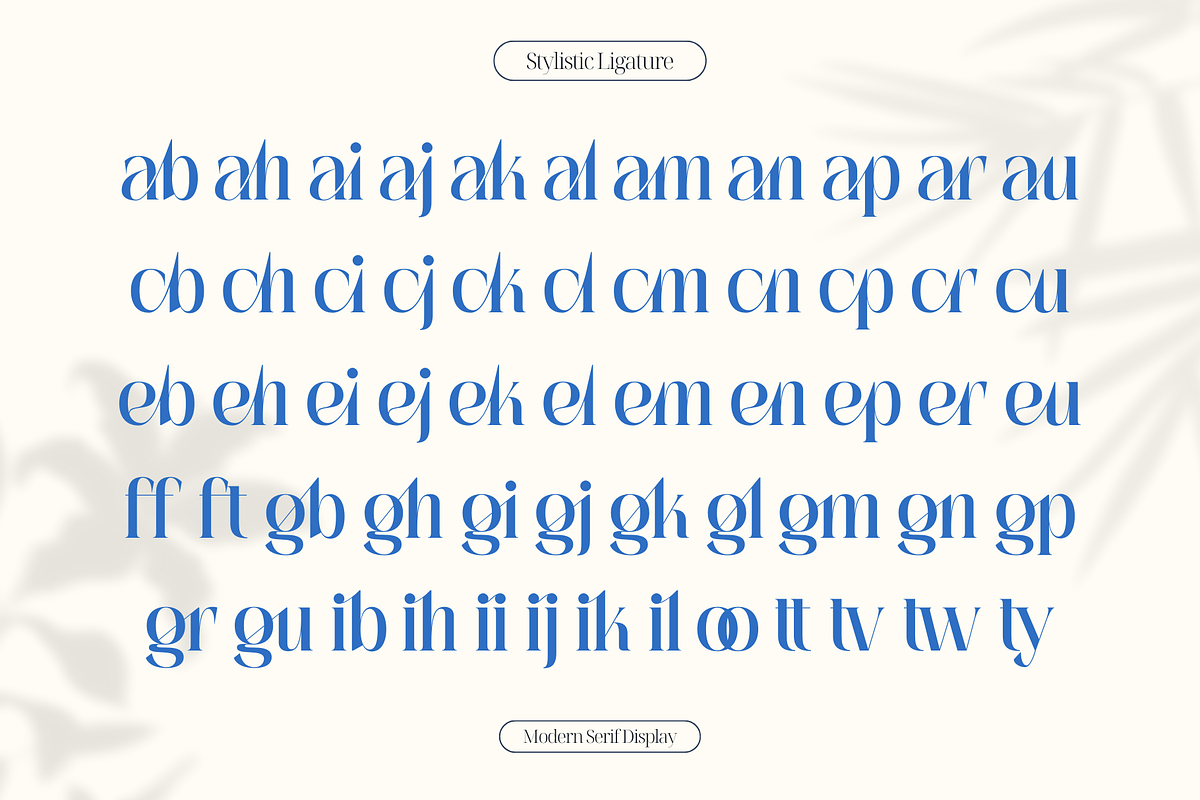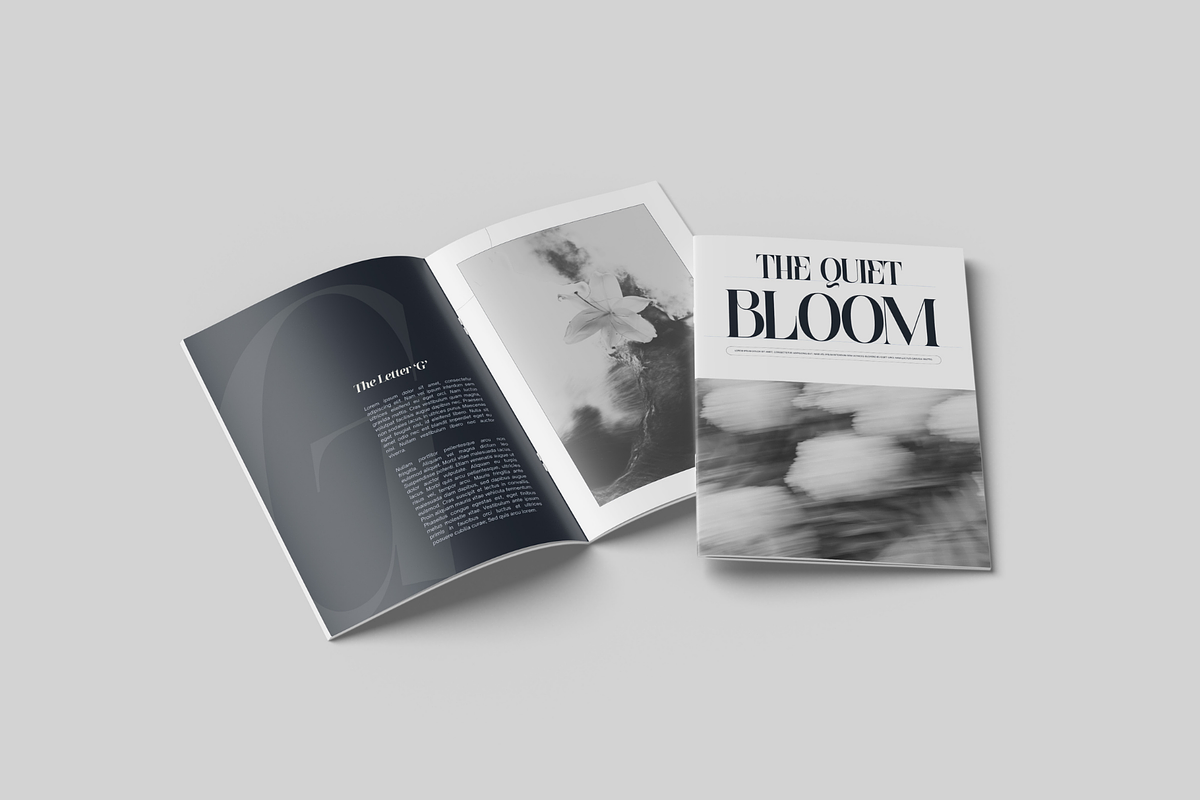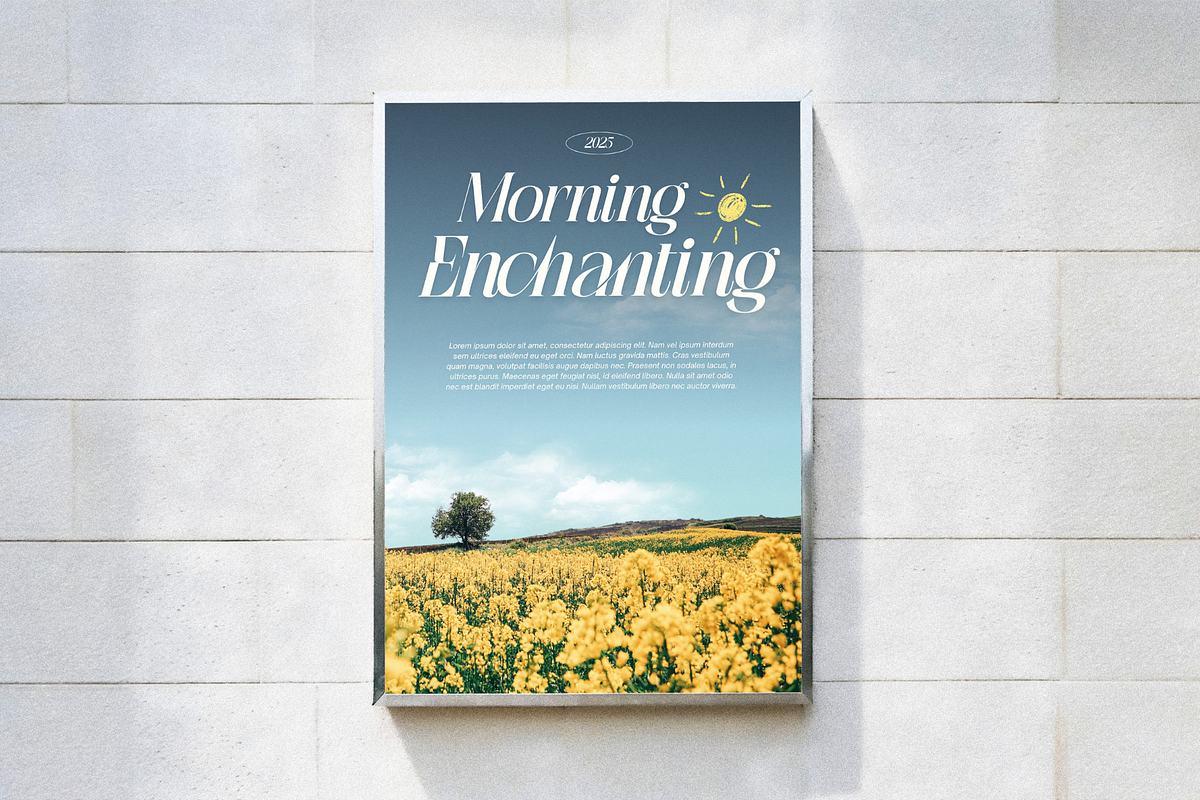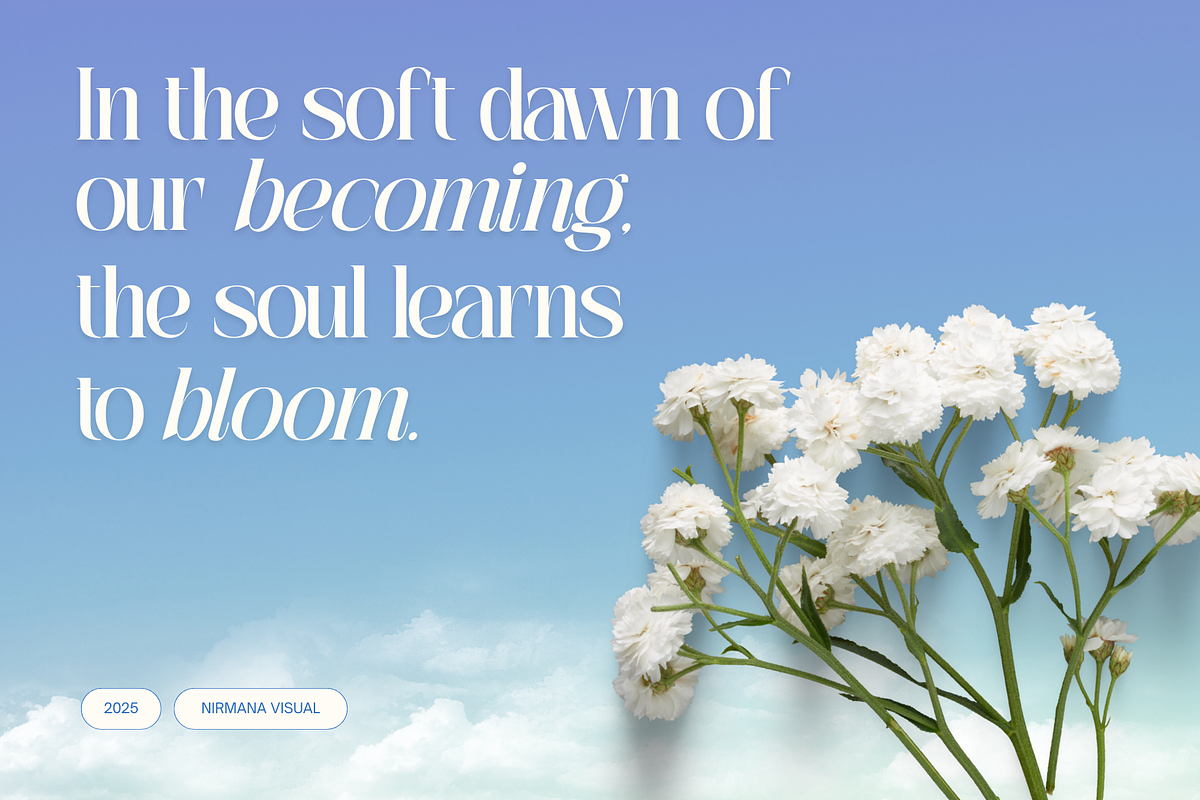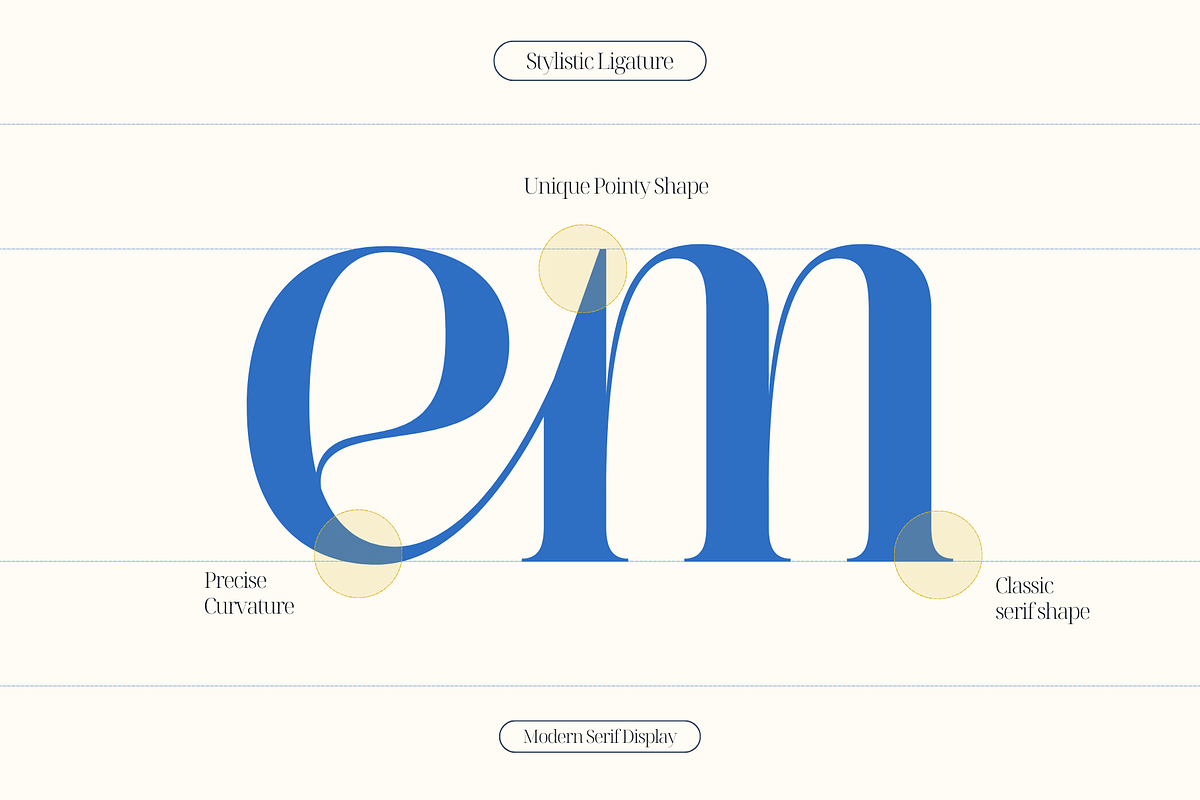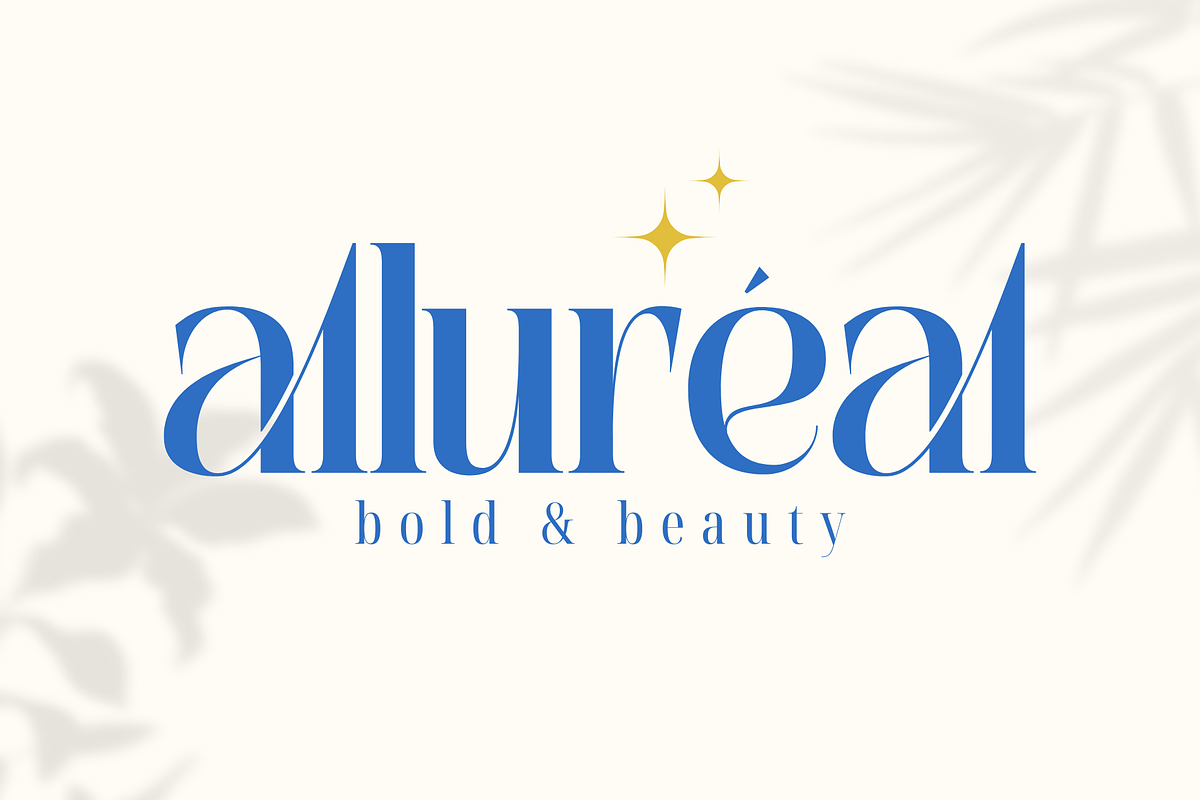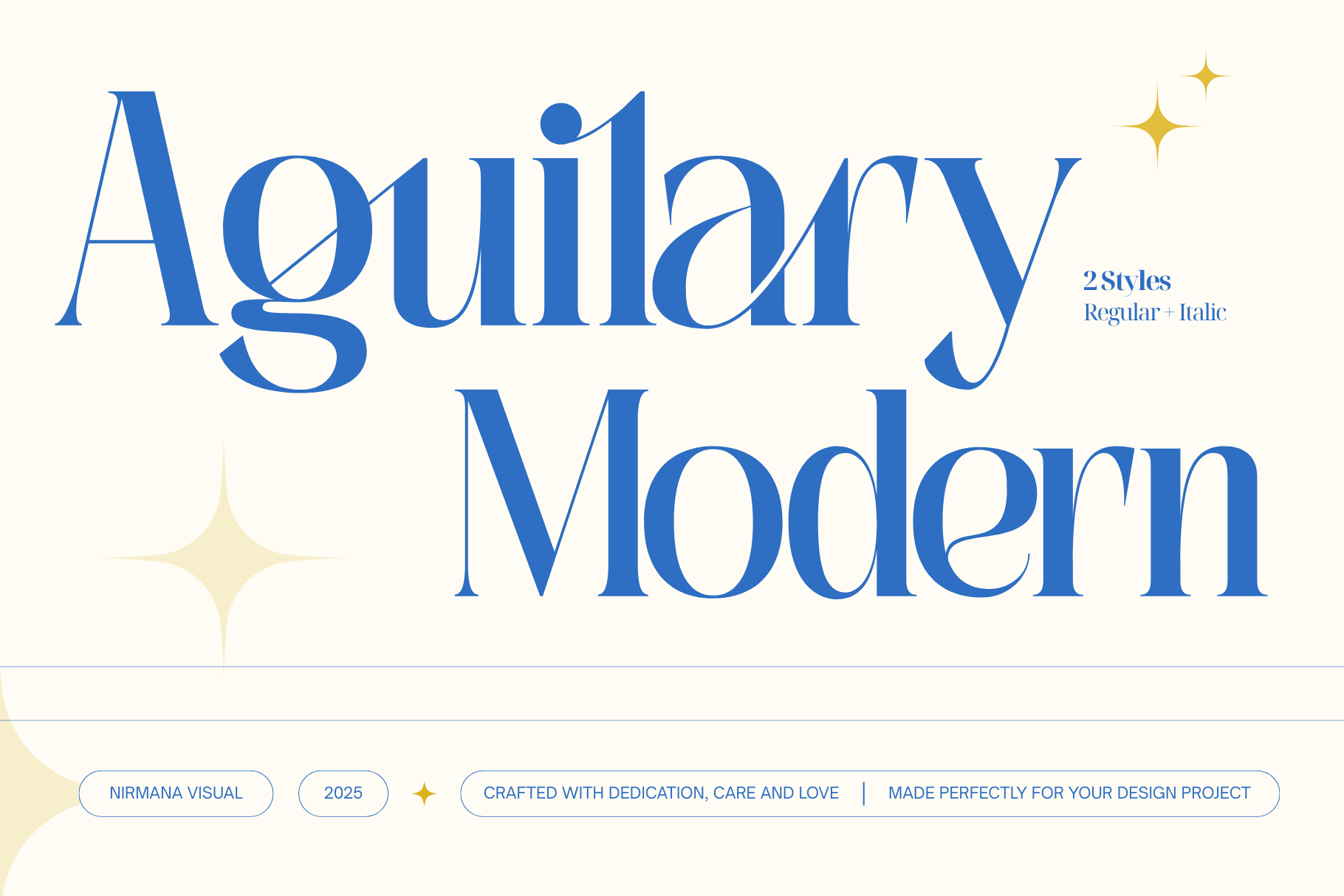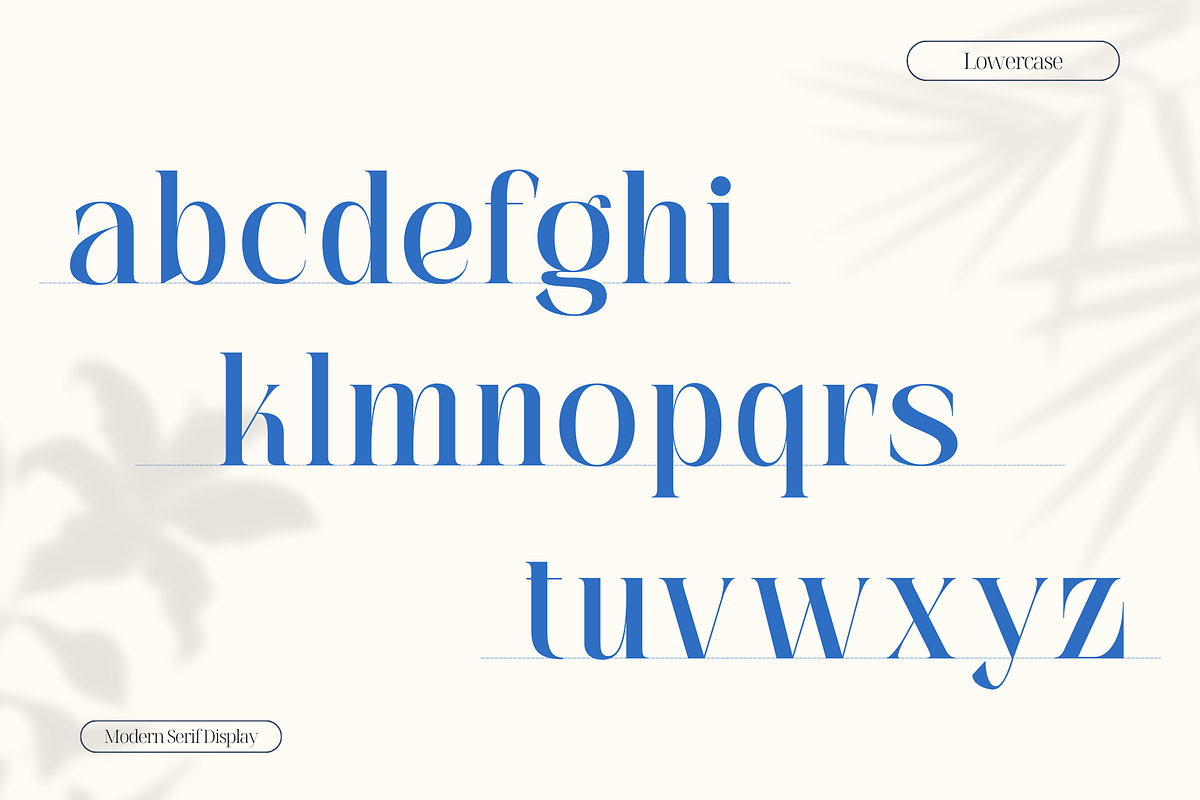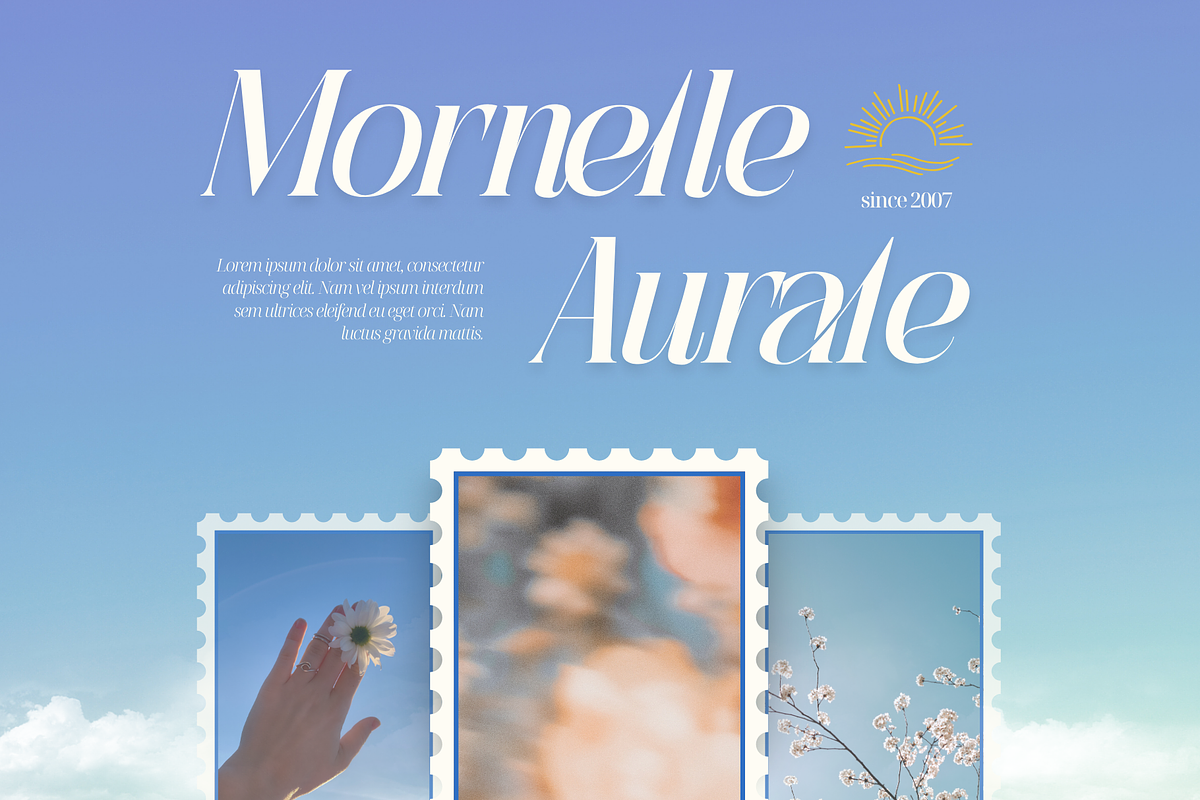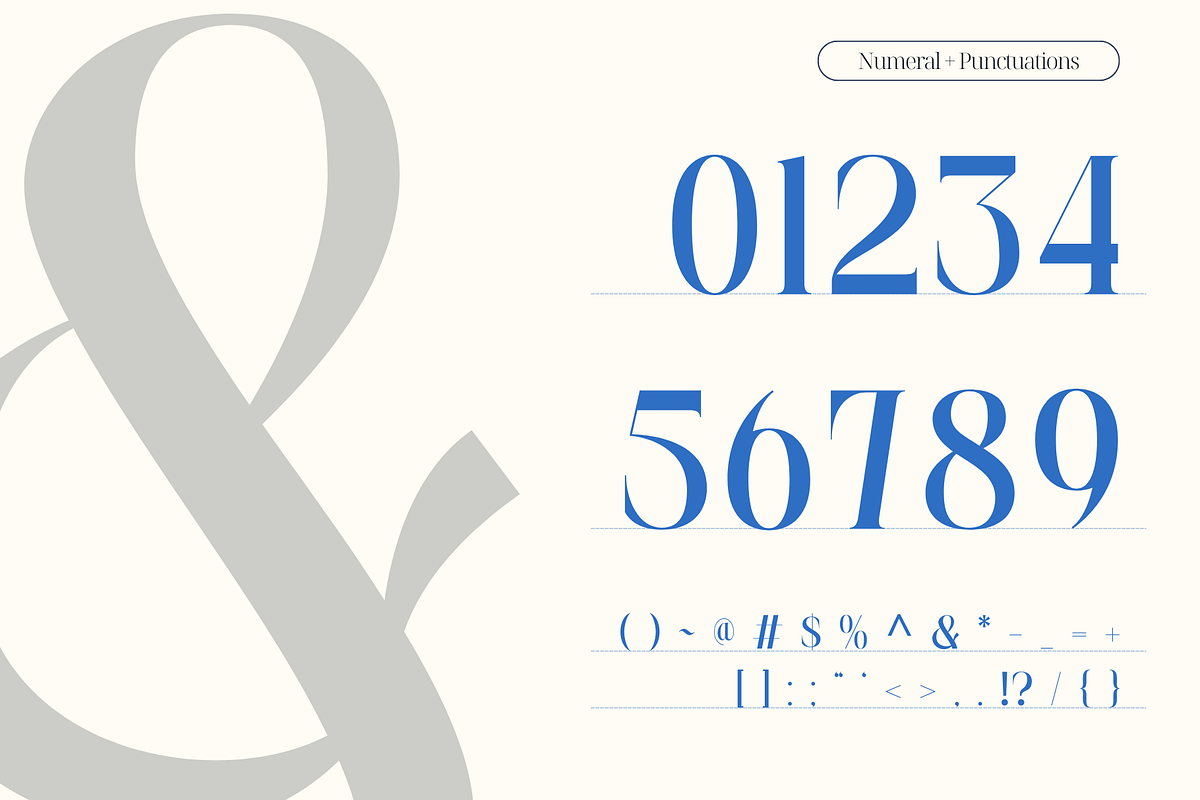
Aguilary Modern - Elegant Logo Font
Aguilary Modern is an aesthetic serif typeface featuring elegant ligatures, available in Regular and Italic. Crafted for refined logo branding, striking headlines, stylish posters, and more, its modern curves and sophisticated details bring a premium, timeless feel to any design. Perfect for creatives seeking a classy, polished, and visually captivating typographic statement.